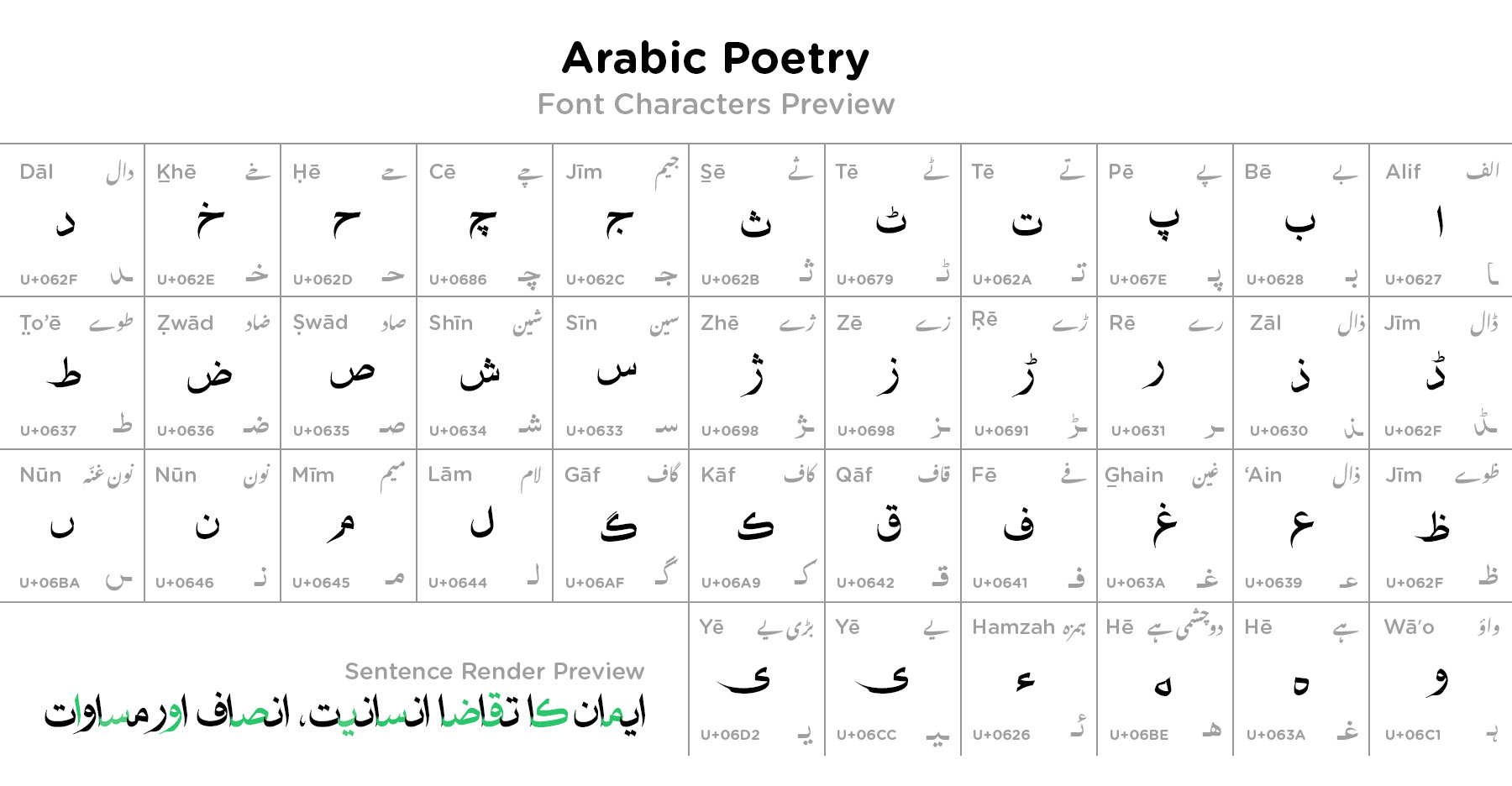
Arabic Poetry, designed by Zakariya Saleh, is a bold and condensed Arabic font that captures the essence of the Ruqaa script with its cluttered and connected appearance. Featuring overlapping letterforms with wide diagonal edges and rounded dense curves adorned with diamond-shaped dots, this font shows a unique and artistic charm that reminds us of traditional calligraphy. With a strong stroke and constant thickness throughout, this font is best suited for short texts due to its condensed nature. While legibility may be lower on screens, especially smaller sizes, the font's bold and thick design adds an impactful aesthetic to various design projects.